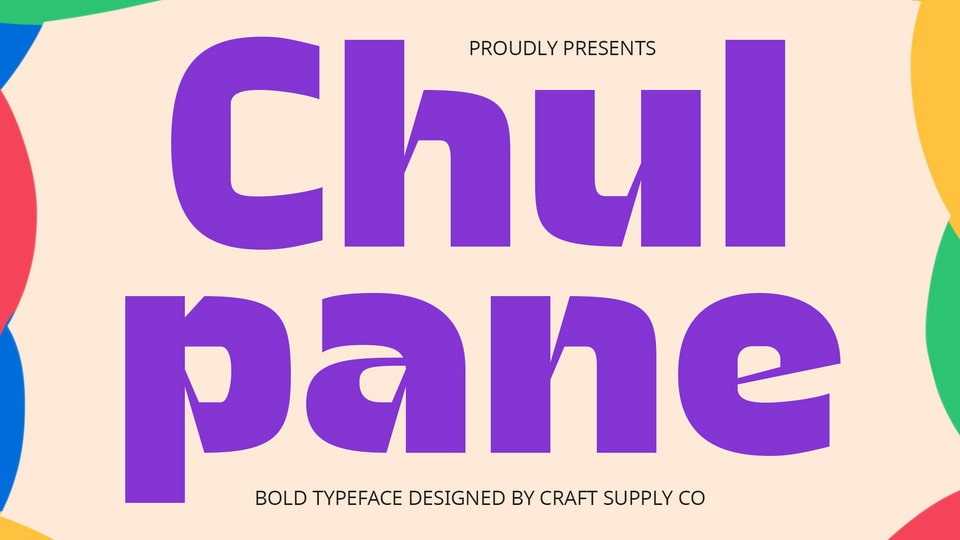
Download Chulpane font, a bold sans serif typeface that exudes strength and clarity with its robust shapes. Ideal for making a bold statement in various designs, it ensures readability and impact.
Designer: Craft Supply Co